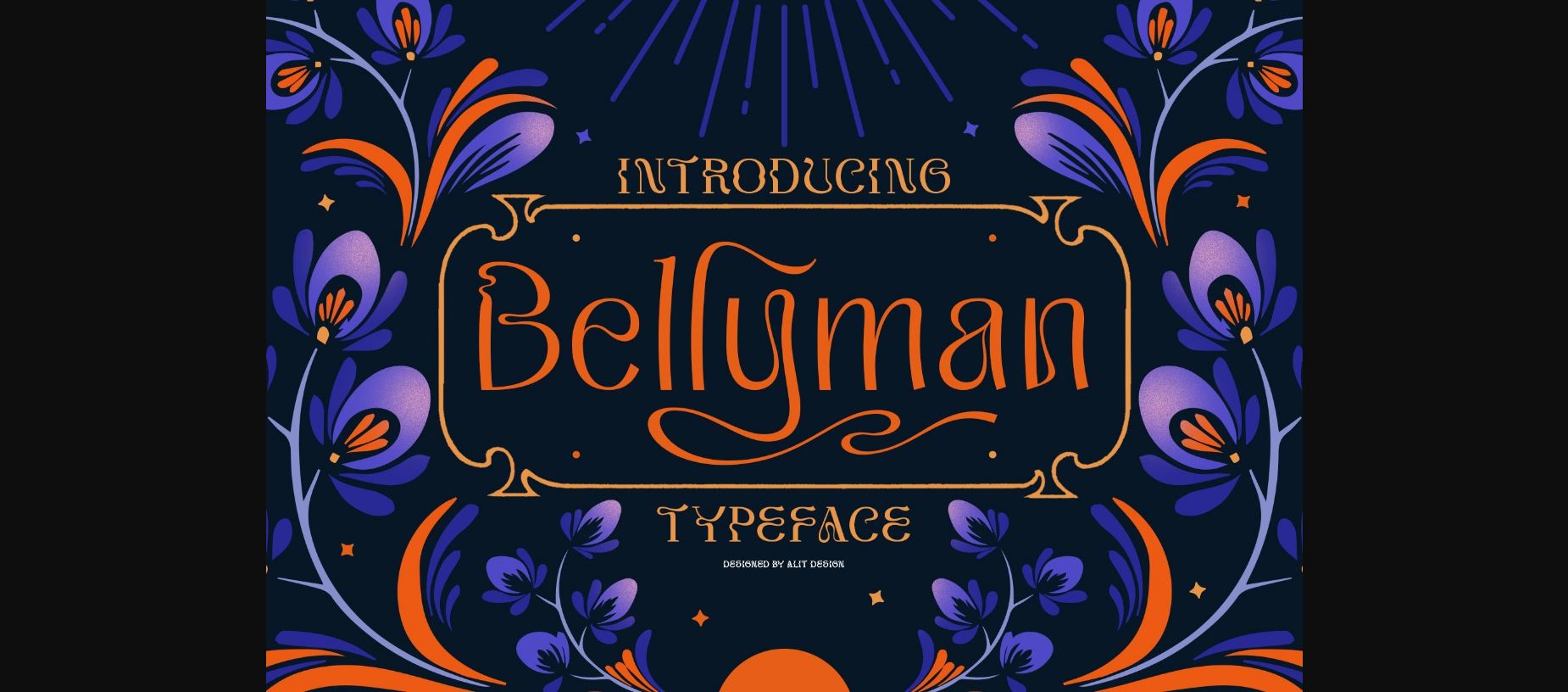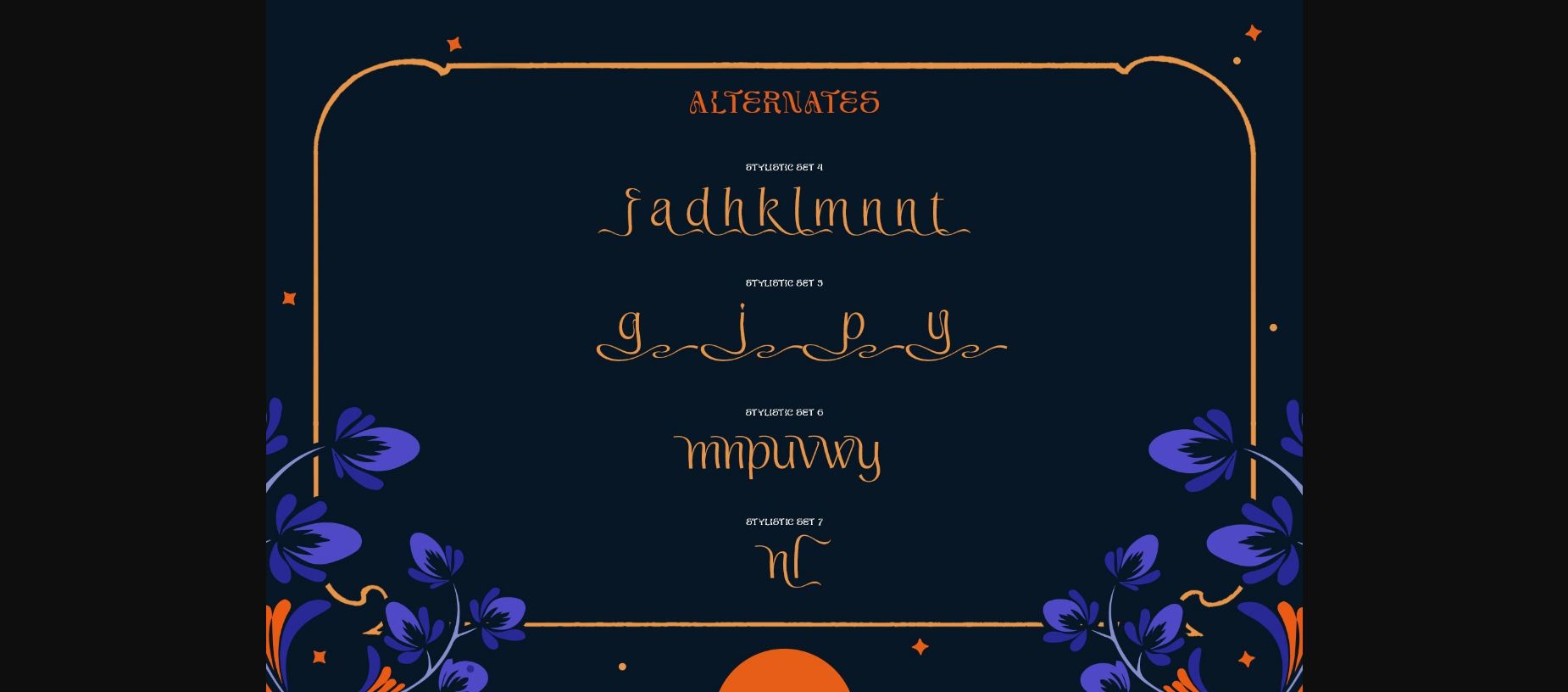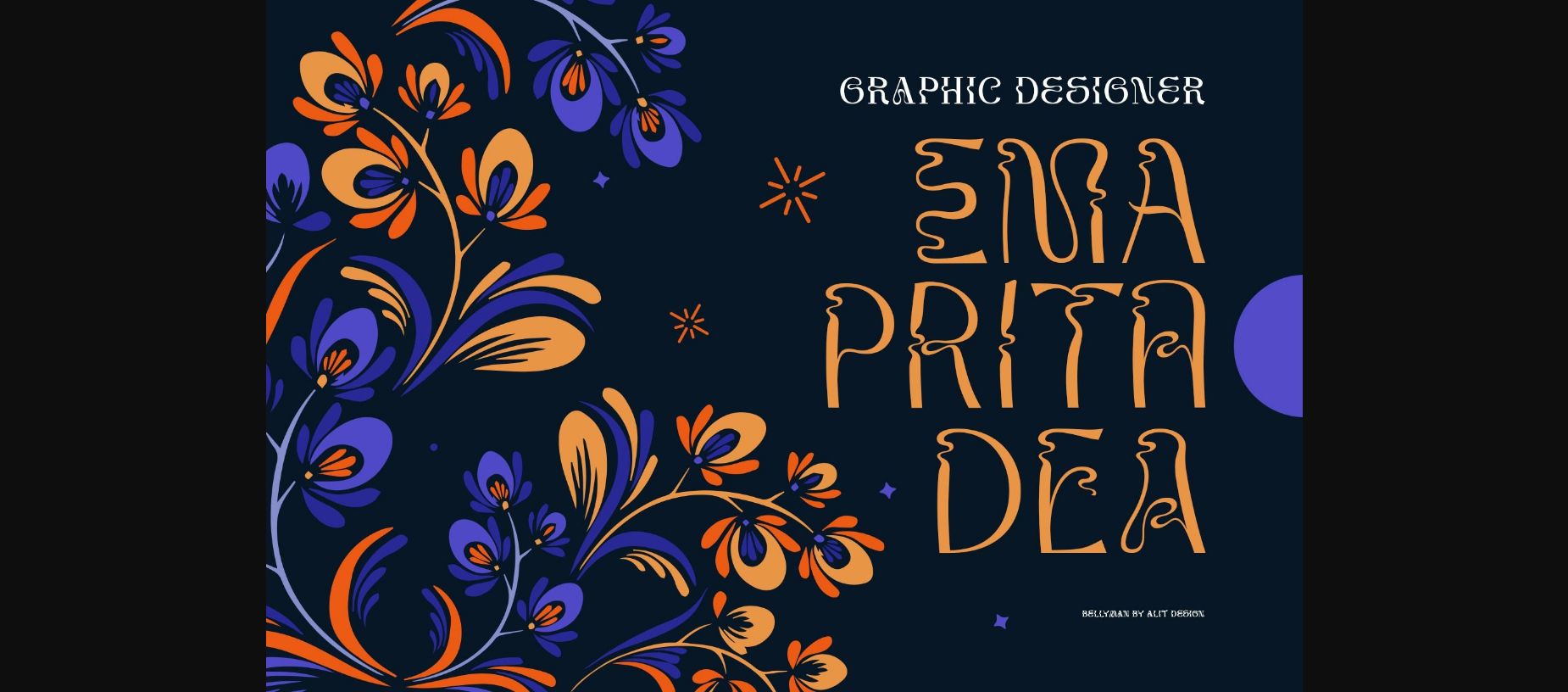
About Bellyman Font
Bellyman is made with the concept of a modern sans serif font that gives a unique impression because it has a curvy shape like waves. It is charming and unique. The sans serif style adopted by the Bellyman font is easy to apply to any design, especially those with an elegant and smooth concept.